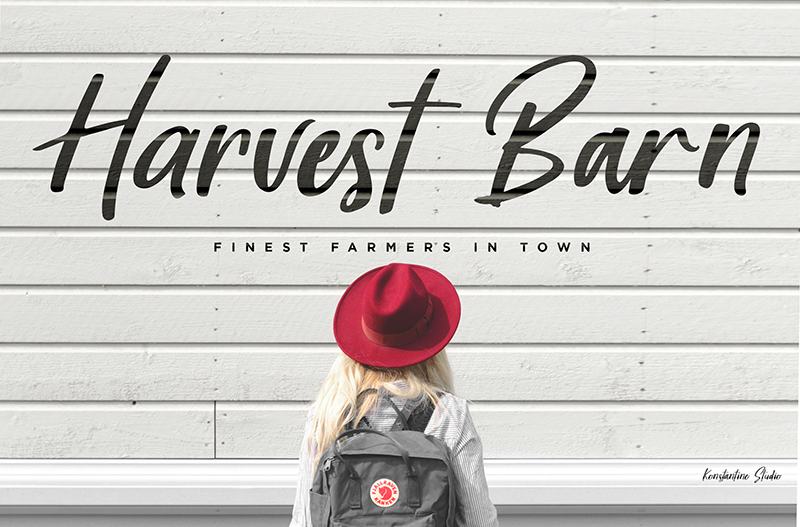
Preview and download Harvest Barn Font. Created by Konstantine Studio in Script Brush styles with Demo license.
By installing or using this demo version you agree to use it as PERSONAL USE ONLY and requires a license for commercial use! --- The font license can be purchased at: https://konstantinestudio.com/ Or you can visit us in the other store below : https://creativemarket.com/konstantinestudio http://www.myfonts.com/foundry/KonstantineStudio/ --- Harvest Barn, a fresh beautiful rustic farmhouse font. Inspired by the rustic home decor concept and farmhouse feels. It would be a perfect mate for branding, logo, rustic wedding concept, home decor, journal, poster quote, vintage flea market promotion, etc. So versatile, right? |